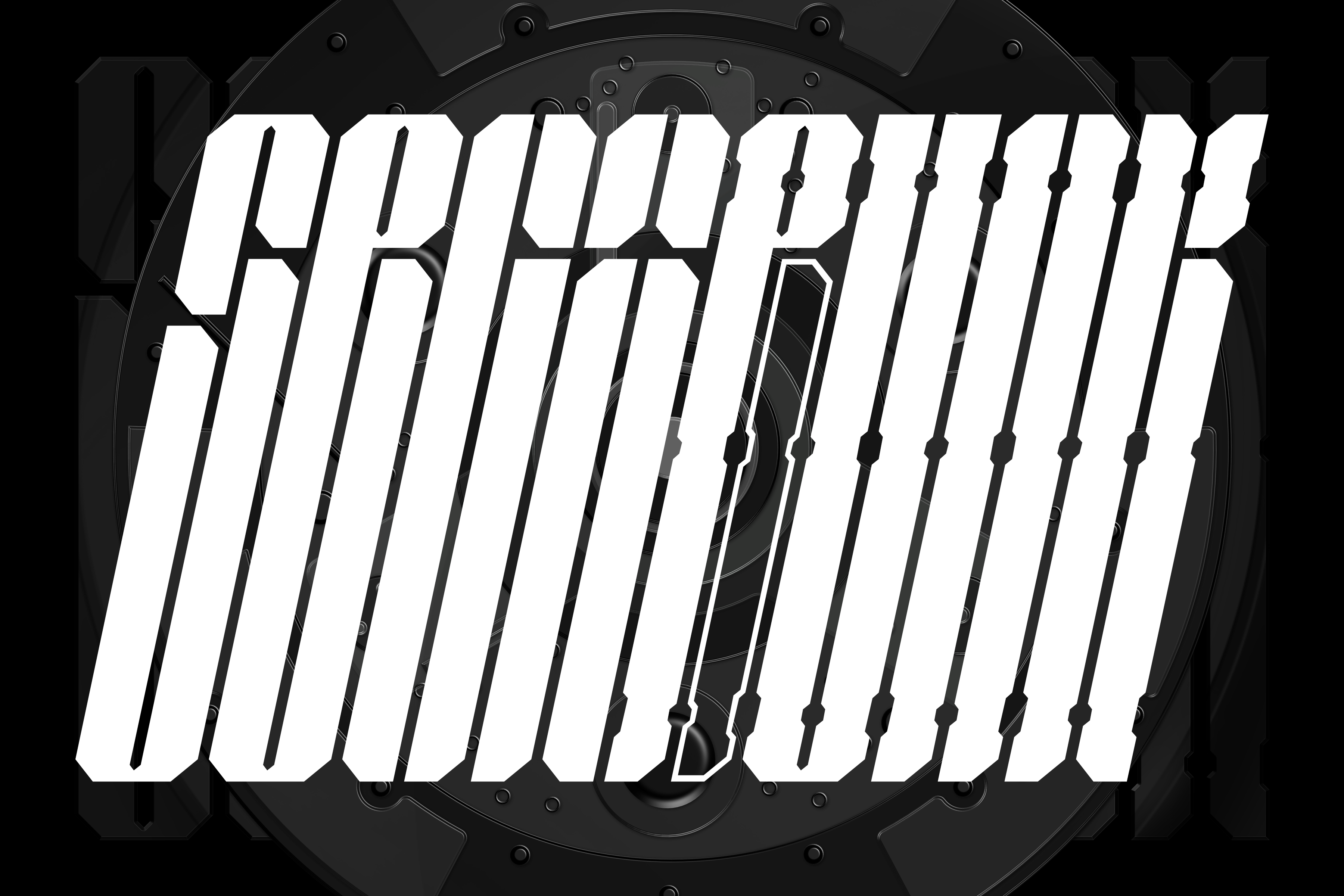
SEGAPUNK EXTENDED FONT FAMILY
SEGAPUNK is a futuristic font family, containing 8 styles. This font has a futuristic, modern, bold, tall and strong appearance. Suitable for projects that use a futuristic, unique, and strong impression. Like examples for Apparel, Branding, Websites, and others. Segapunk is available in Regular, Cyborg, Italic, and Stencil Style.
- 8 Different Style : Segapunk, Segapunk Cyborg, Segapunk Stencil, Segapunk Cyborg Stencil, Italic Segapunk, Italic Segapunk Cyborg, Italic Segapunk Stencil, Italic Segapunk Cyborg Stencil
- 26 Uppercase
- 26 Lowercase
- 10 Numeral/ Numbers
- 43 Uppercase Alternates
- 27 Lowercase Alternates
- 29 Ligatures